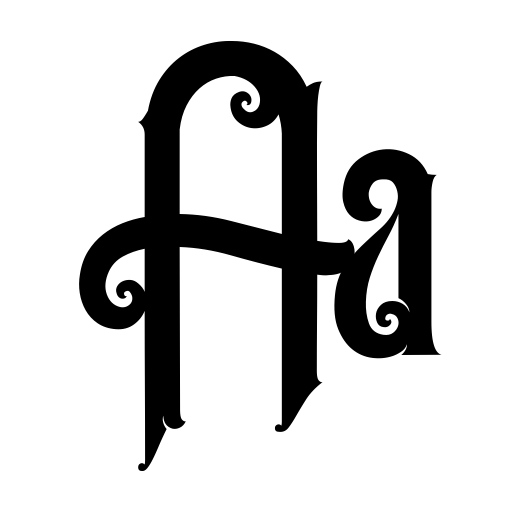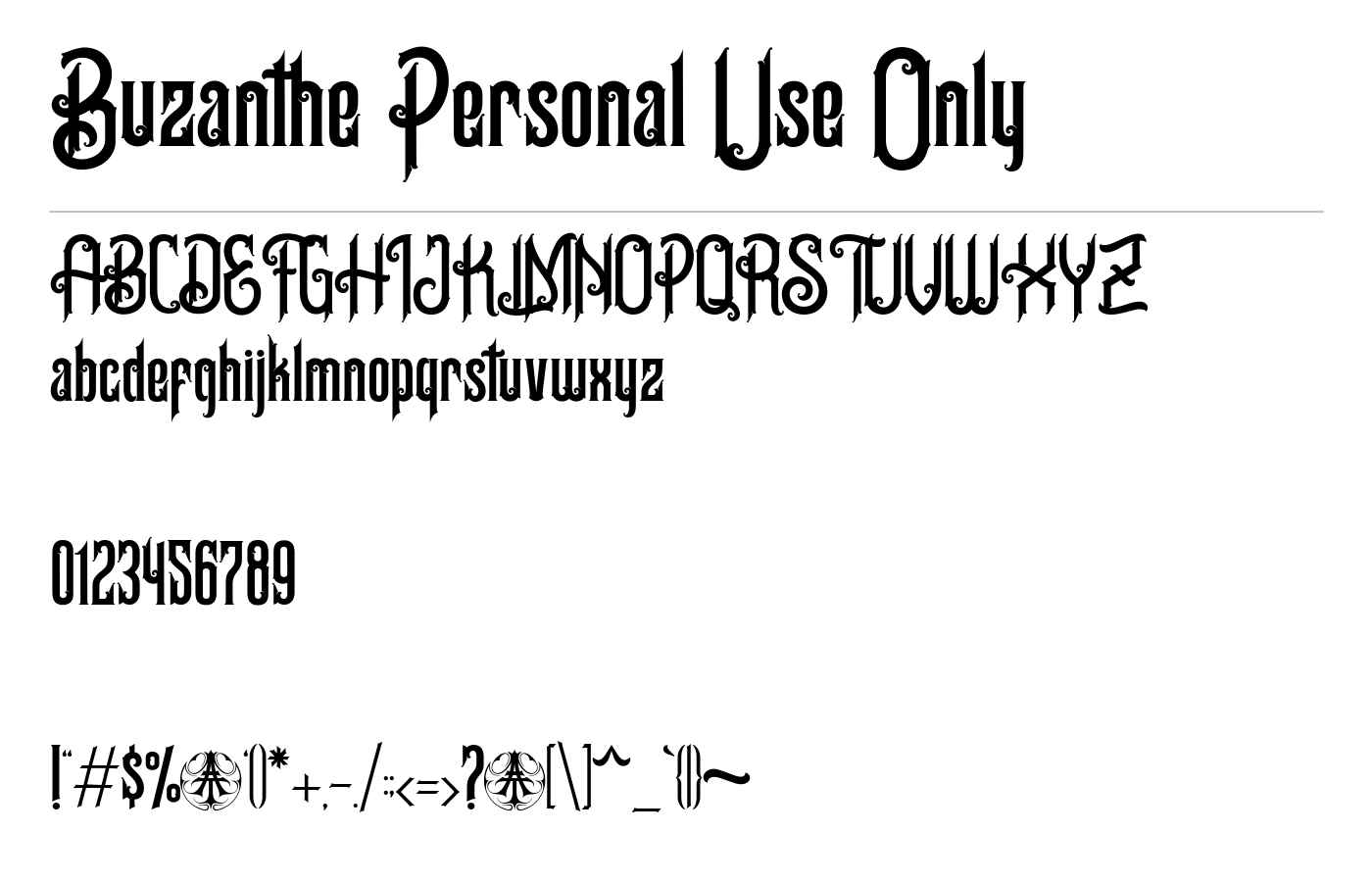
Buzanthe Personal Use Only is a decorative serif font with a distinct Gothic and vintage flair, characterized by tall, narrow letterforms and intricate, ornate details. Its high contrast strokes and stylized serifs create an elegant yet dramatic effect, making it ideal for eye-catching headlines, logos, and design projects that aim to evoke a historic or mysterious atmosphere. This font works best in display settings where its unique personality can shine without compromising readability.
Buzanthe Personal Use Only Font
About Buzanthe Personal Use Only Font